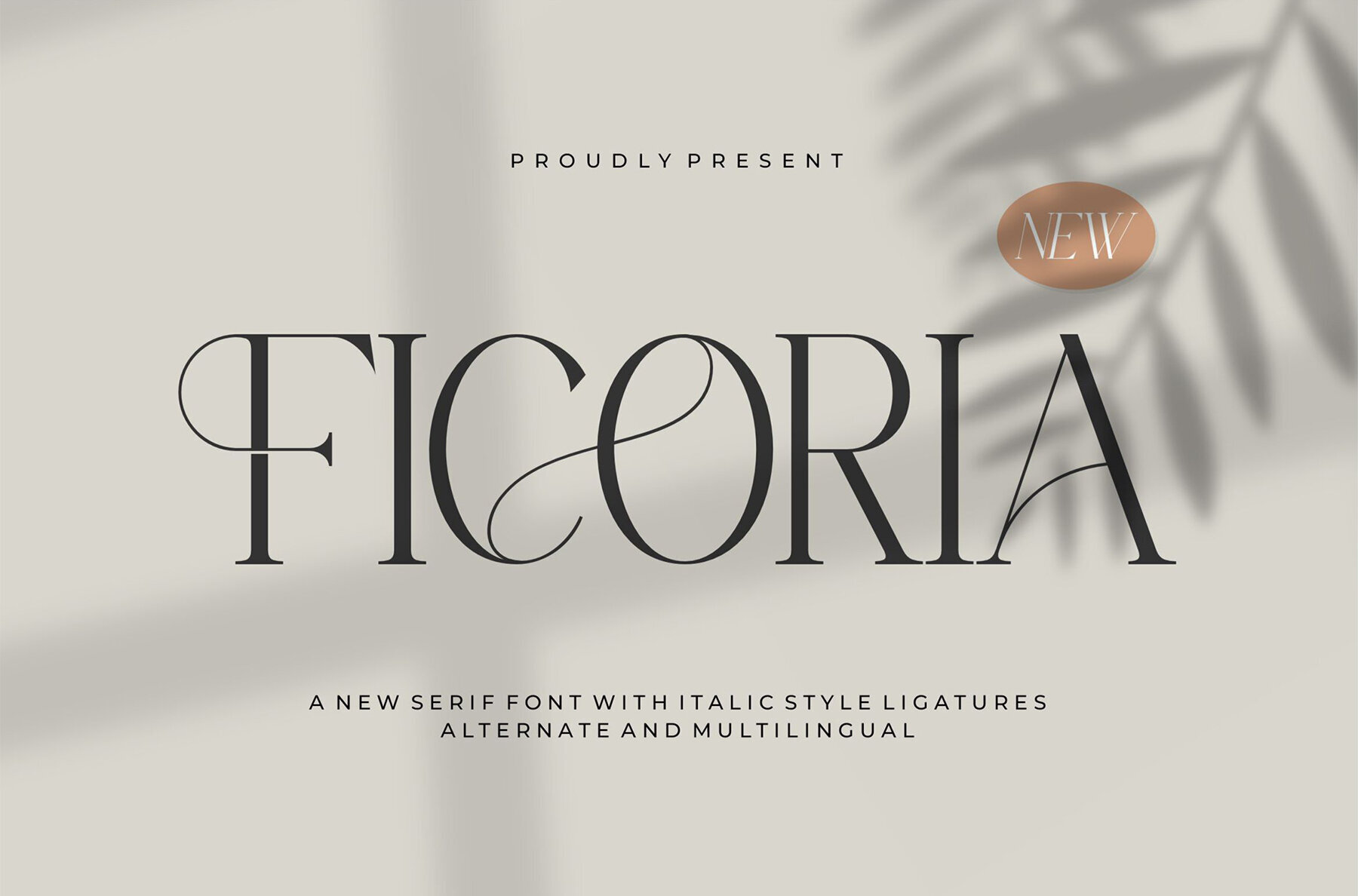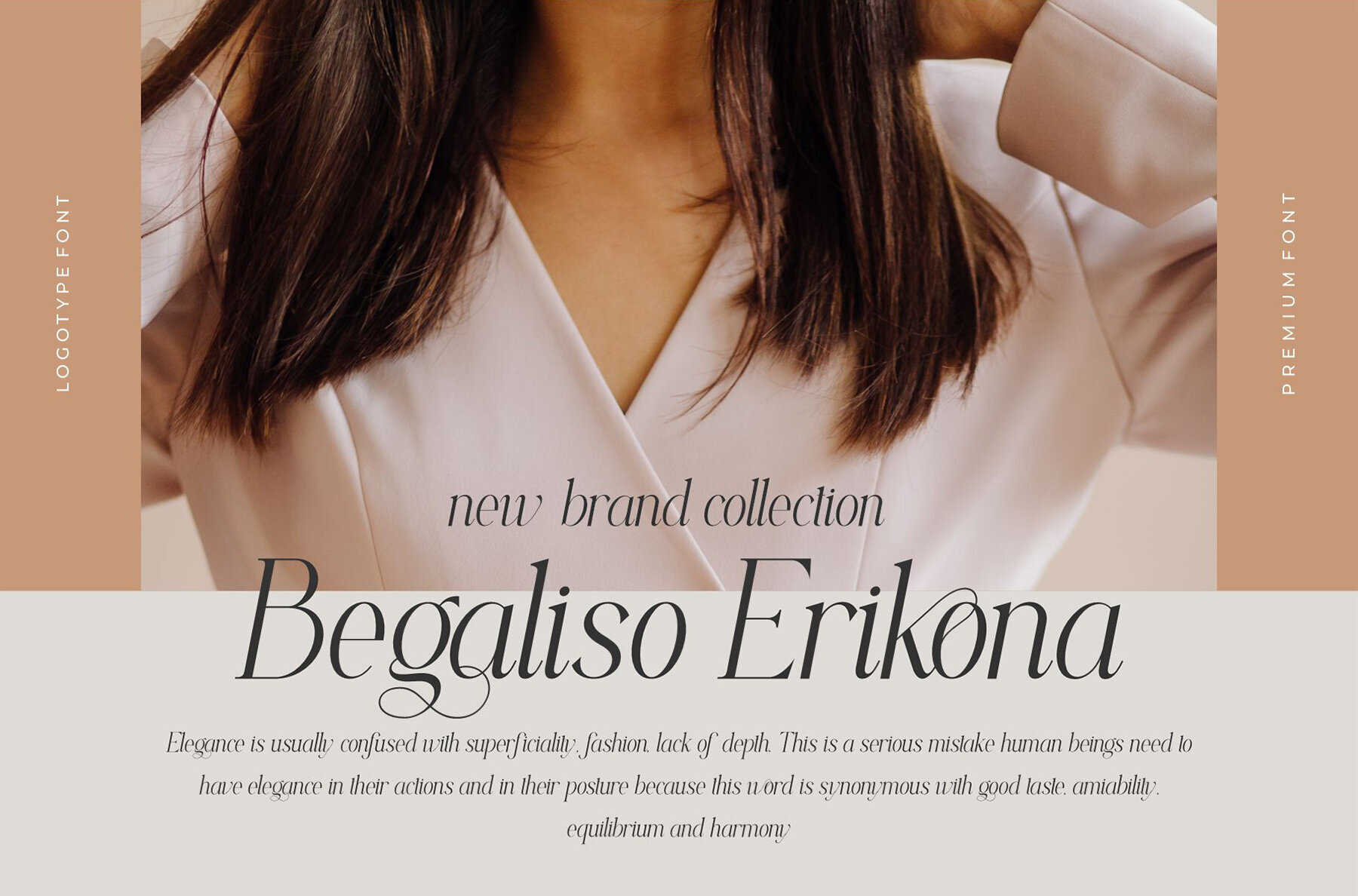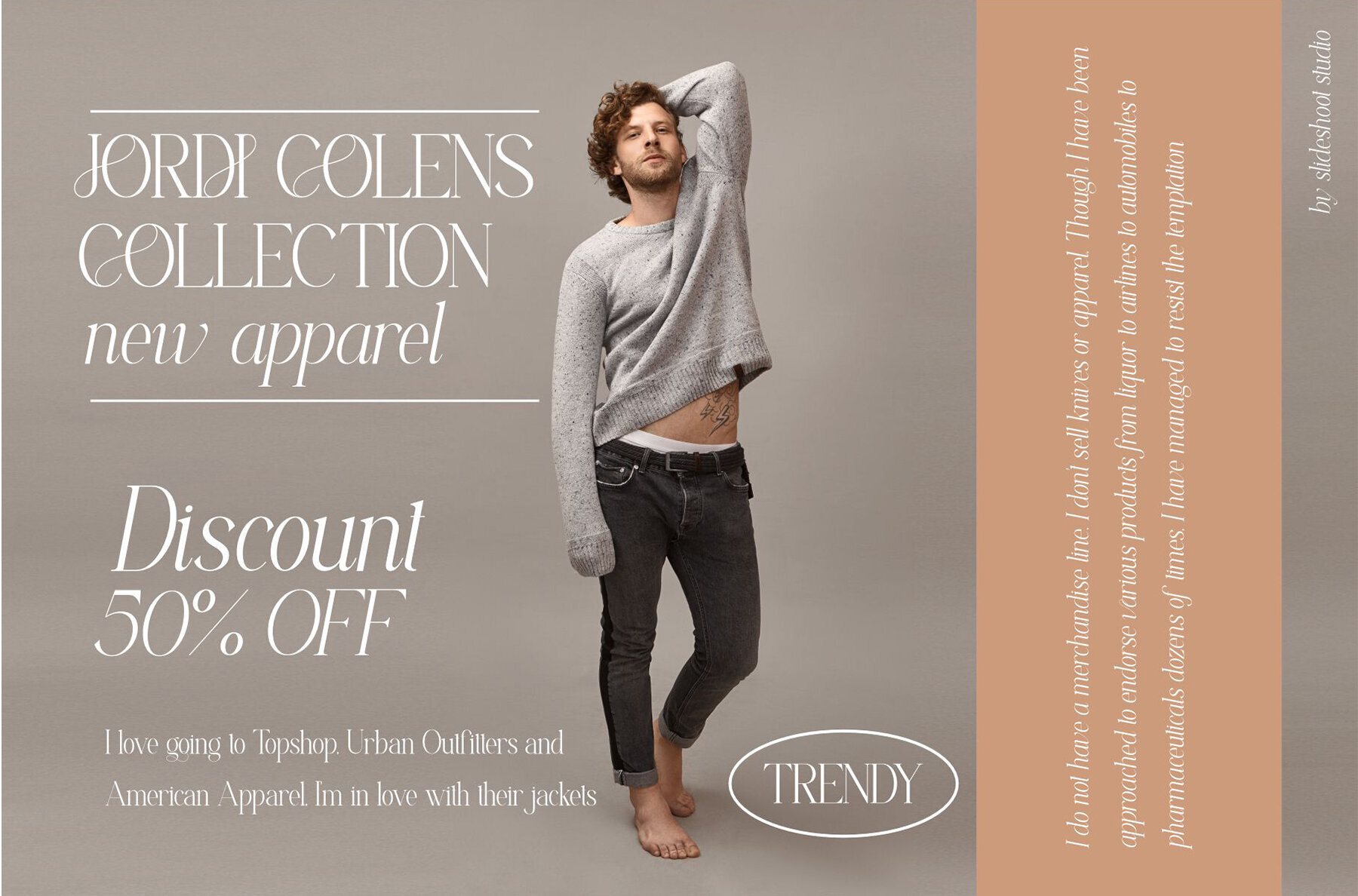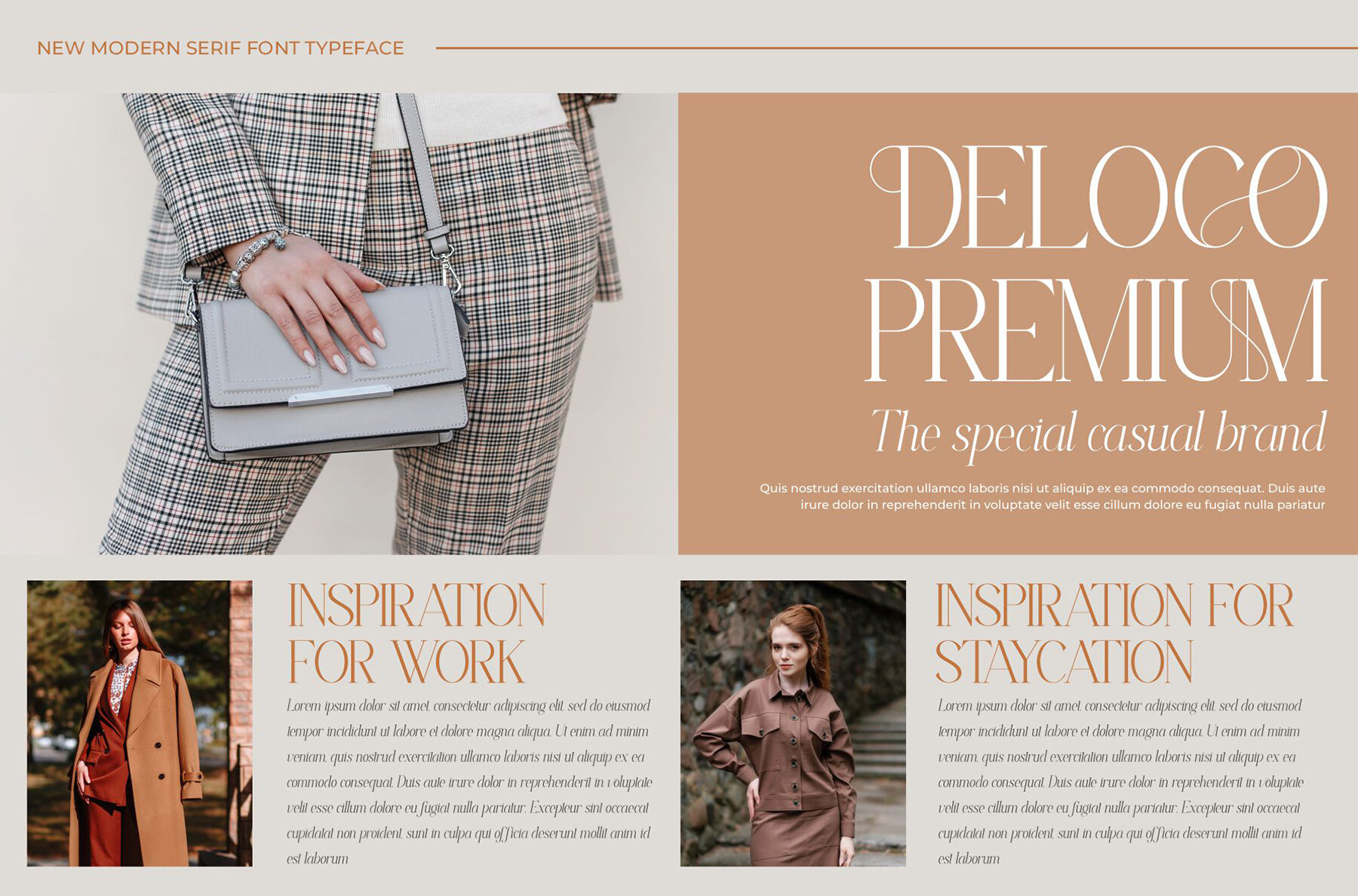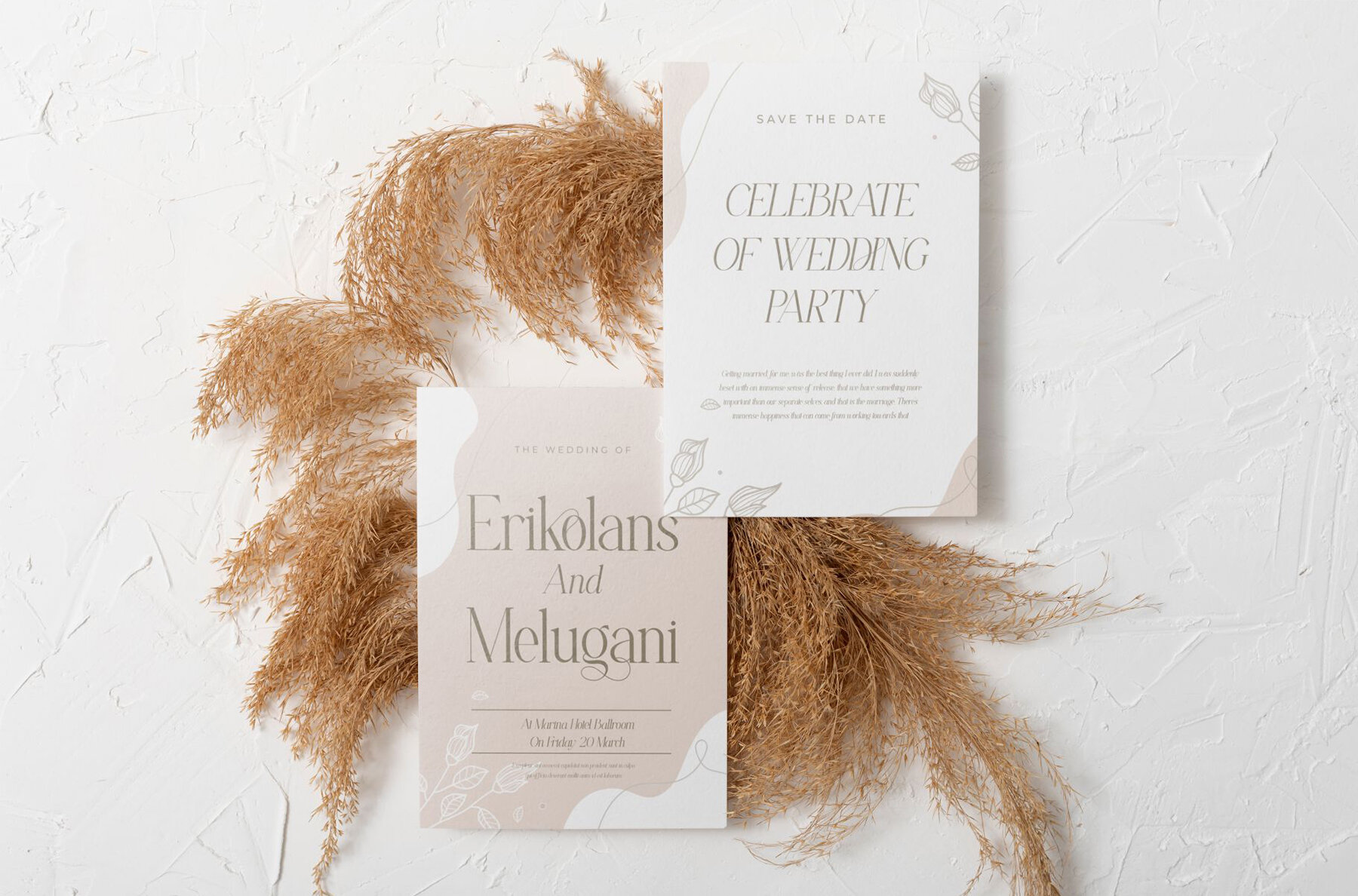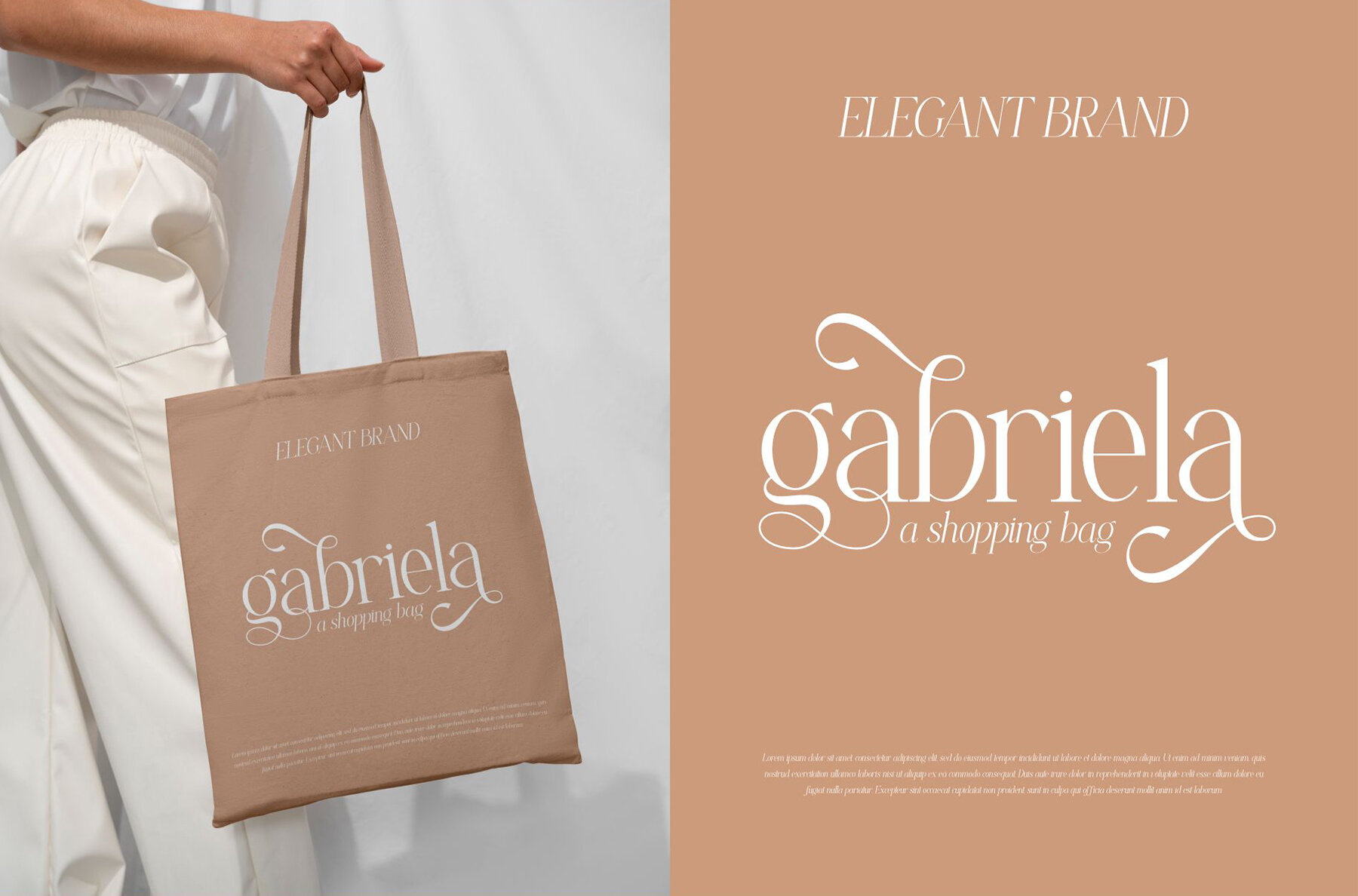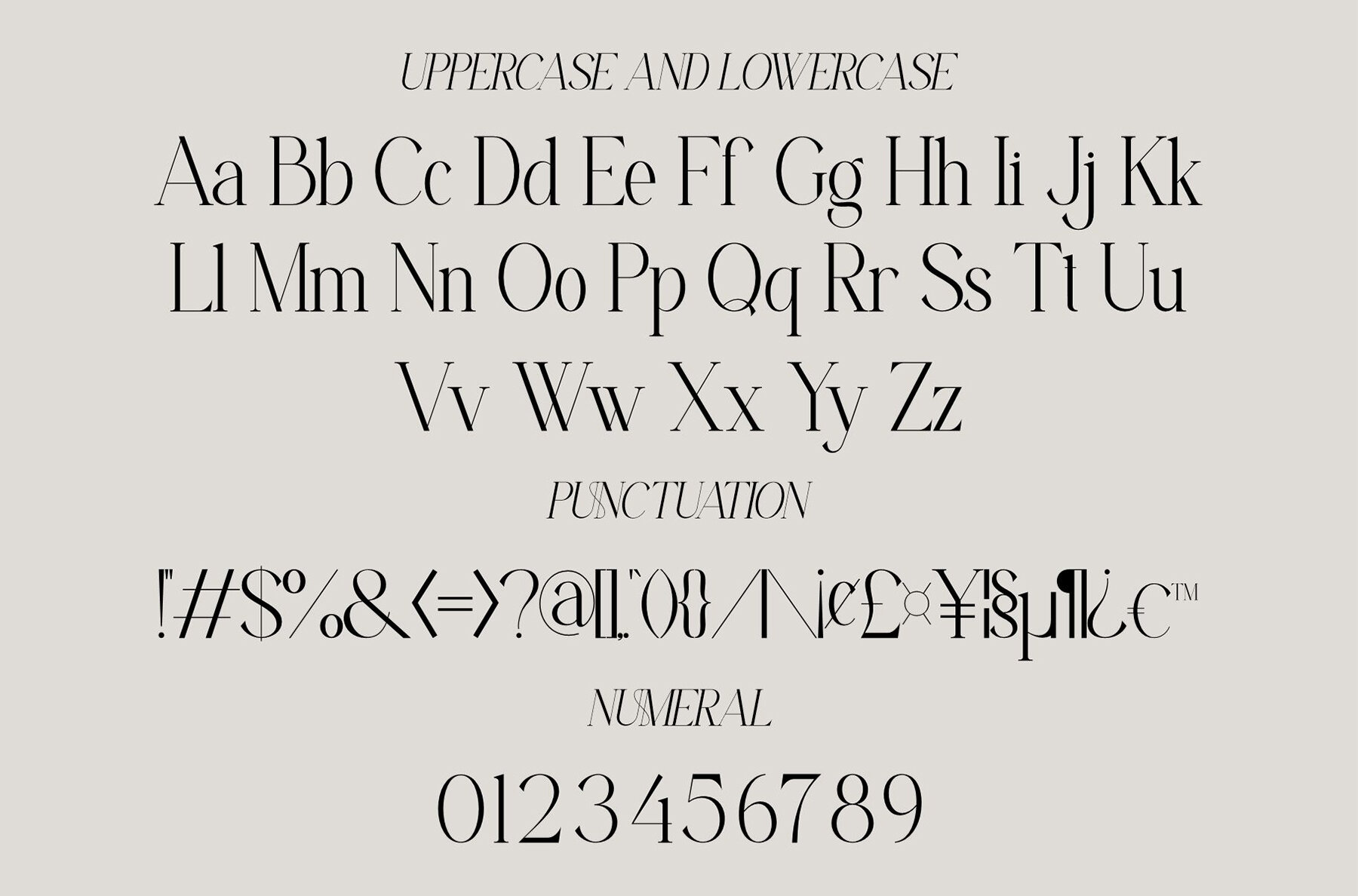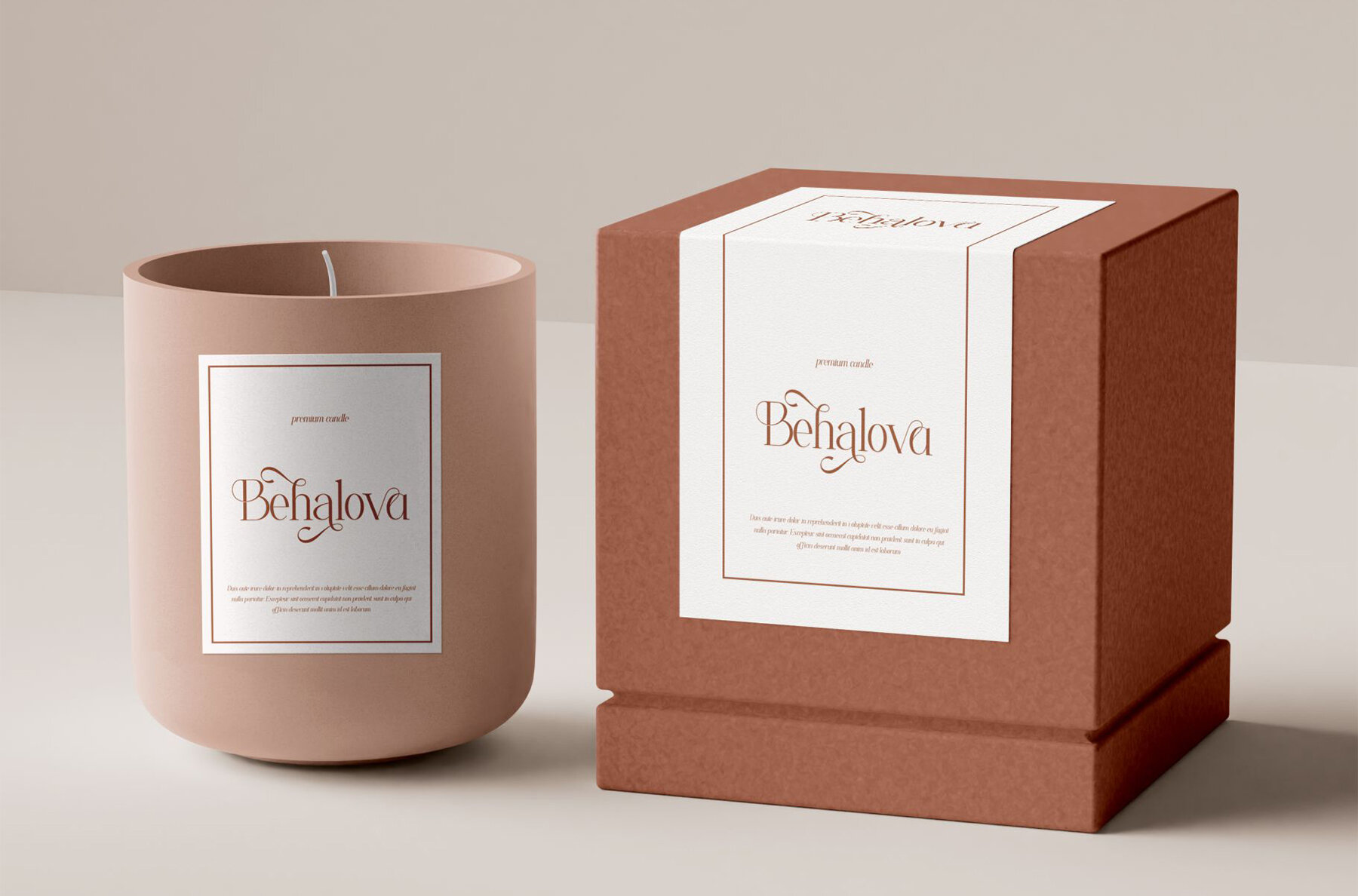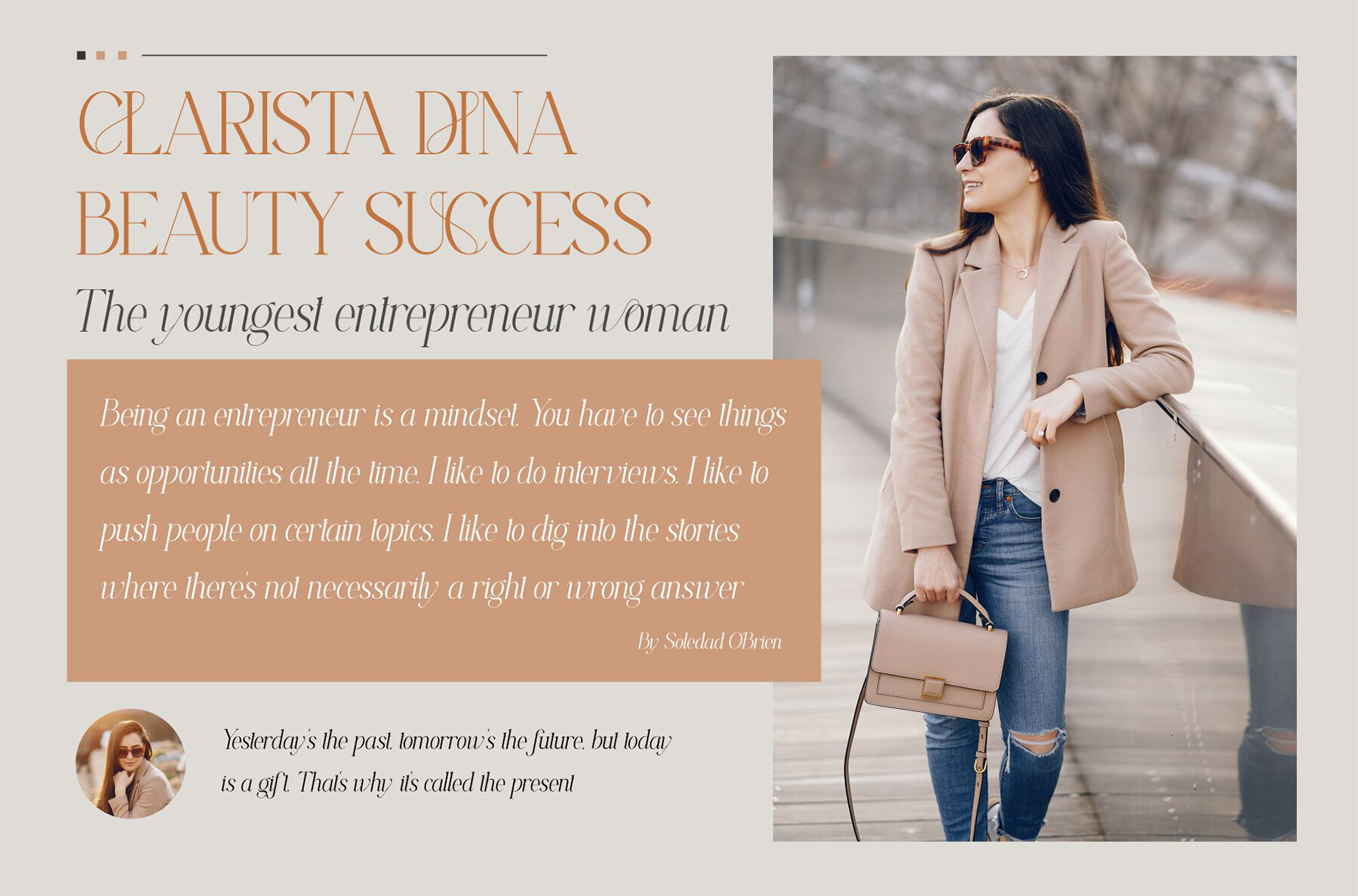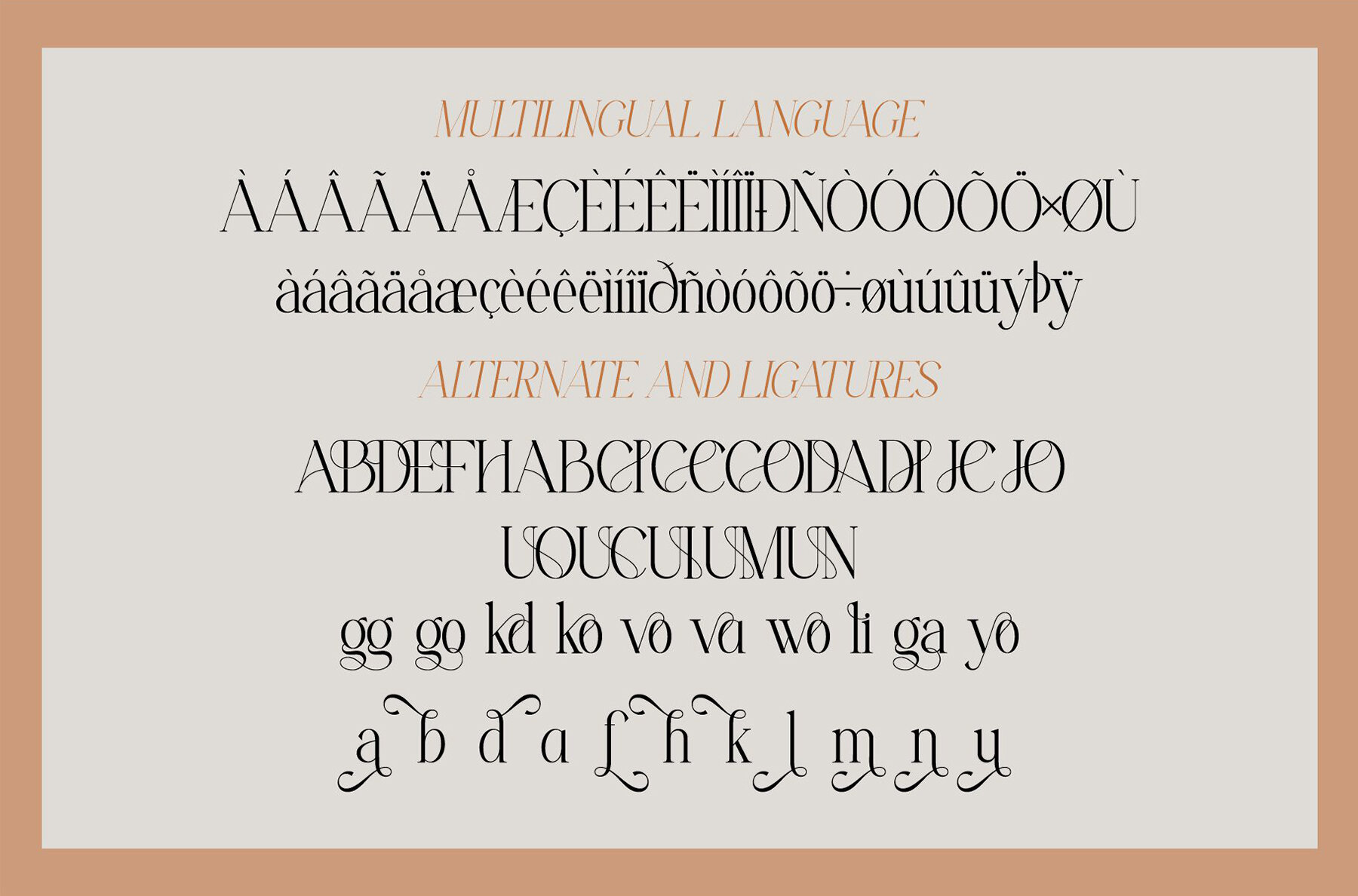
Ficoria Font
Ficoria by Slide Font is a sans serif typeface that exudes modernity and elegance with a touch of futurism. Ideal for a wide range of design projects, Ficoria is an excellent choice for invitation cards, company logos, movie titles, business cards, book titles, and brand names. Its distinctive style and artistic ligatures ensure that it adds sophistication to any project.
Key features of the Ficoria font include ligatures, a complete set of uppercase and lowercase letters, and comprehensive numbering and punctuation. This font is compatible with both PC and Mac, allowing for simple installation. It seamlessly integrates with popular design software like Adobe Illustrator, Adobe Photoshop, and Adobe InDesign, and is also functional in Microsoft Word.